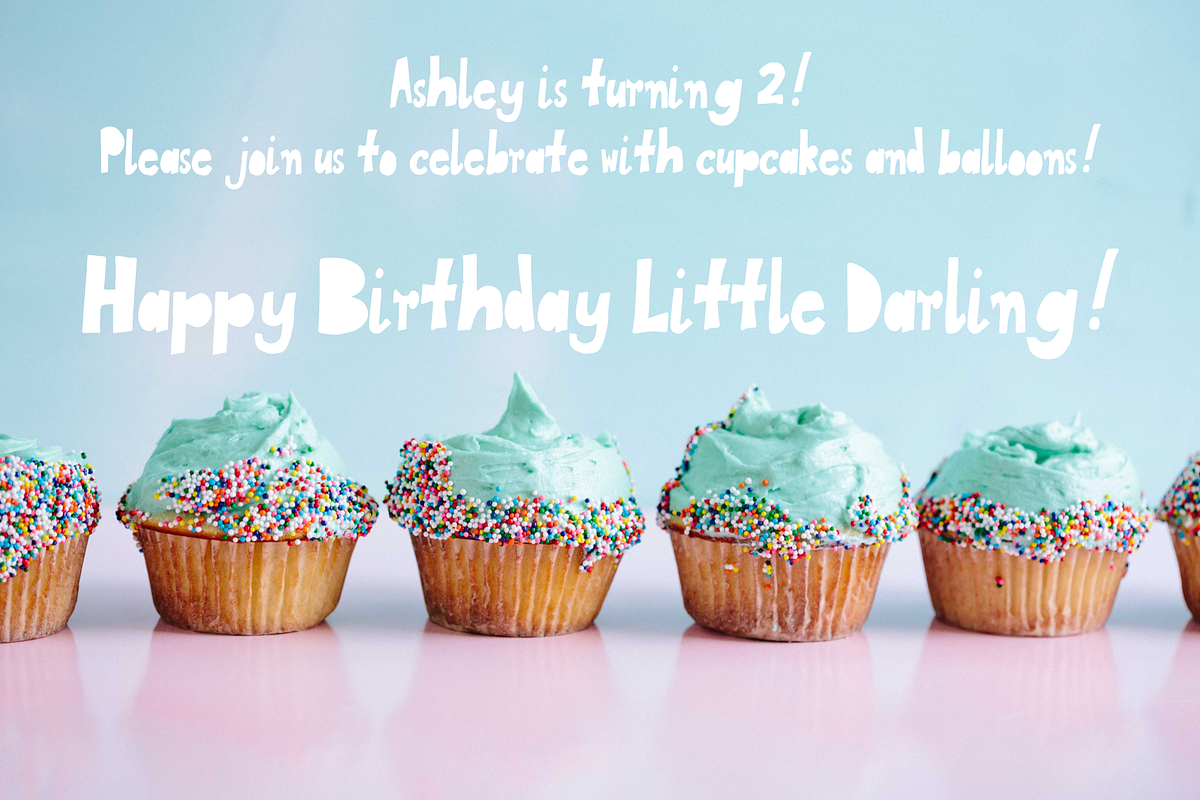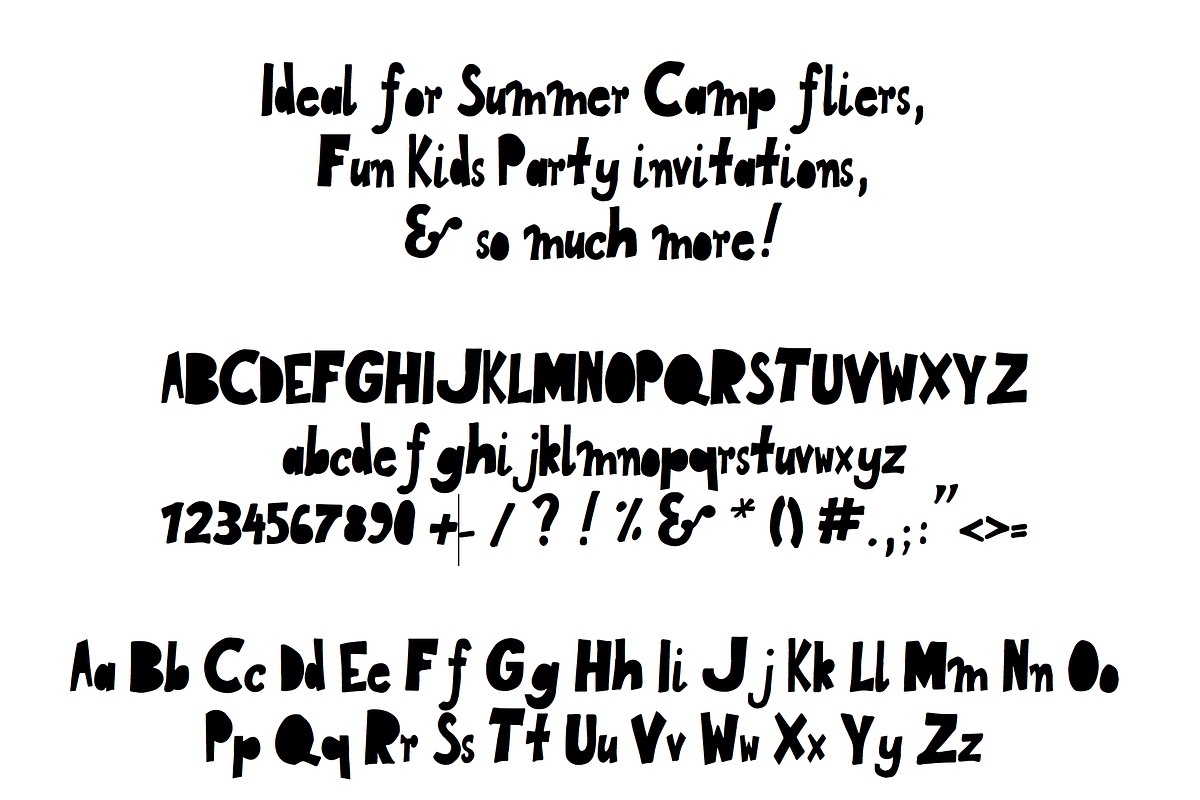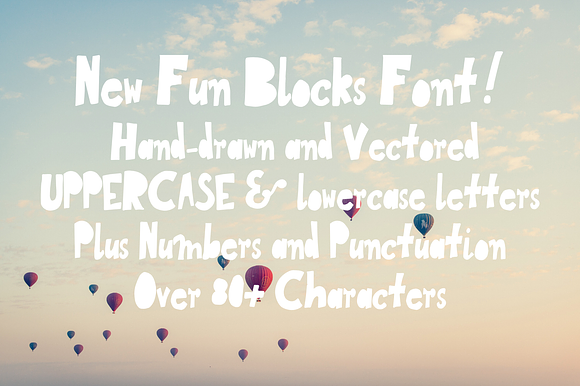
New Fun Blocks - Hand-drawn Typeface
Completely irregular hand-drawn font with varying weights to give your work that absolutely unique and personable look!
New Fun Blocks - Hand-drawn Typeface by dorisfullgrabe fits naturally into Branding, posters, packaging, typography.